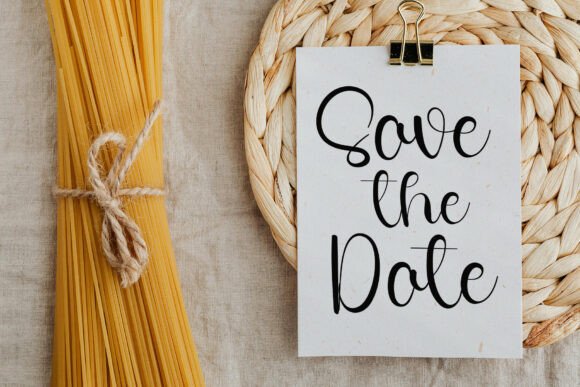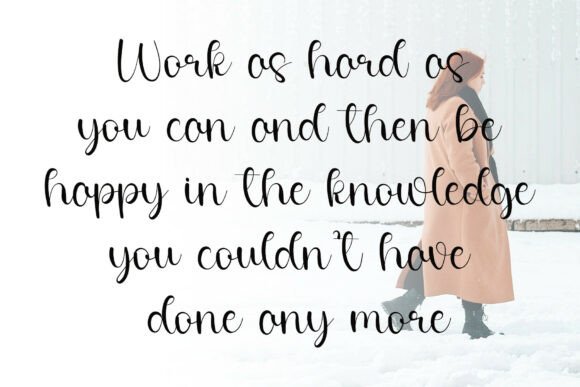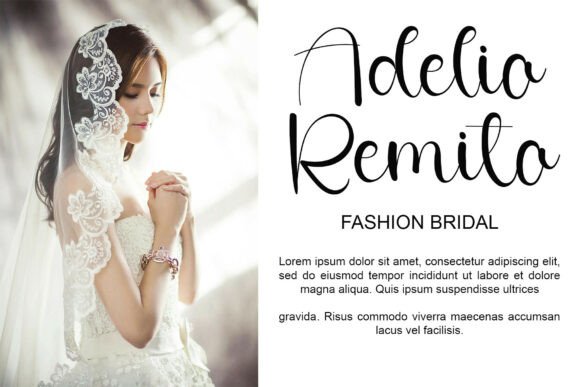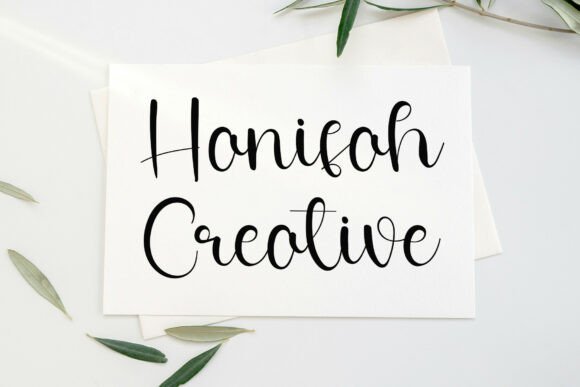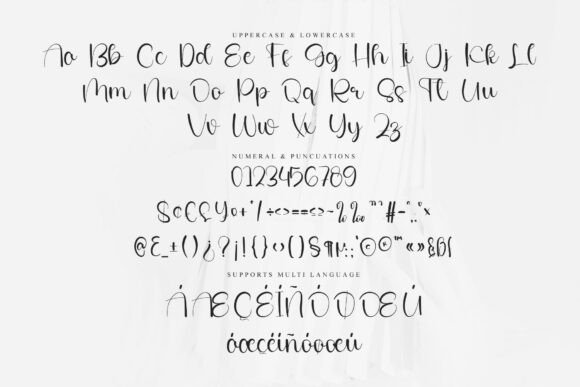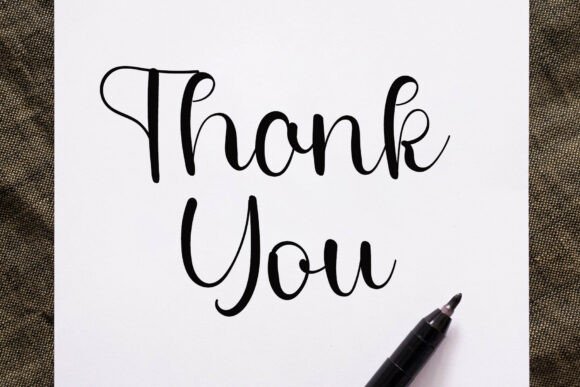
Elegant Wedding Font: A Charming Handwritten Script for Life’s Sweetest Occasions
When it comes to creating beautiful and memorable designs for life’s most special moments, the right font can make all the difference. Introducing Elegant Wedding, a stunning handwritten script font that embodies the perfect blend of joy, elegance, and sophistication. This exquisite font is specifically designed to celebrate life’s sweetest occasions, making it an ideal choice for wedding designs, invitations, greeting cards, and more.
The Essence of Elegant Wedding Font
Elegant Wedding is a beautifully flowing handwritten script font that radiates warmth and refinement. Its delicate curves and playful yet refined strokes bring a touch of whimsy and romance to any design. This charming font is perfect for designers and crafters looking to add a sophisticated flair to their creations, whether it’s for wedding invitations, event signage, or heartfelt stationery.
Perfect for Wedding Designs
As a wedding script font, Elegant Wedding is unparalleled in its ability to evoke the magic and romance of the special day. Its elegant and refined strokes make it perfect for creating beautiful wedding invitations, save-the-date cards, and other stationery. The font’s flowing script and delicate curves also make it an excellent choice for designing event signage, such as welcome signs, directional signs, and more.
Versatility Beyond Wedding Designs
While Elegant Wedding is specifically designed with weddings in mind, its versatility extends far beyond. This beautiful handwritten script font can be used for a wide range of design projects, including:
• Greeting cards: Create heartfelt and personalized greeting cards for special occasions, such as birthdays, anniversaries, and holidays.
• Branding: Add a touch of elegance and sophistication to your brand’s identity with Elegant Wedding.
• Stationery: Design beautiful and refined stationery, including letterheads, notebooks, and journals.
Why Choose Elegant Wedding Font?
So, what sets Elegant Wedding apart from other fonts? Here are just a few reasons why designers and crafters love this beautiful handwritten script font:
• Unique and eye-catching: Elegant Wedding’s delicate curves and playful strokes make it a standout font that’s sure to grab attention.
• Versatile: This font can be used for a wide range of design projects, from wedding designs to branding and stationery.
• Elegant and refined: Elegant Wedding exudes sophistication and refinement, making it perfect for designs that require a touch of luxury.
Tips for Using Elegant Wedding Font
To get the most out of Elegant Wedding, here are a few tips to keep in mind:
• Pair with complementary fonts: Combine Elegant Wedding with complementary fonts to create a beautiful and harmonious design.
• Experiment with colors: Try pairing Elegant Wedding with a range of colors to find the perfect combination for your design.
• Pay attention to spacing: Make sure to adjust the spacing between letters and words to ensure that your design flows smoothly and elegantly.
Elegant Wedding is a truly special font that’s sure to bring a touch of magic to any design. With its delicate curves, playful strokes, and elegant refinement, this beautiful handwritten script font is perfect for designers and crafters looking to create memorable and beautiful designs for life’s sweetest occasions. Whether you’re designing wedding invitations, event signage, or heartfelt stationery, Elegant Wedding is the perfect choice.